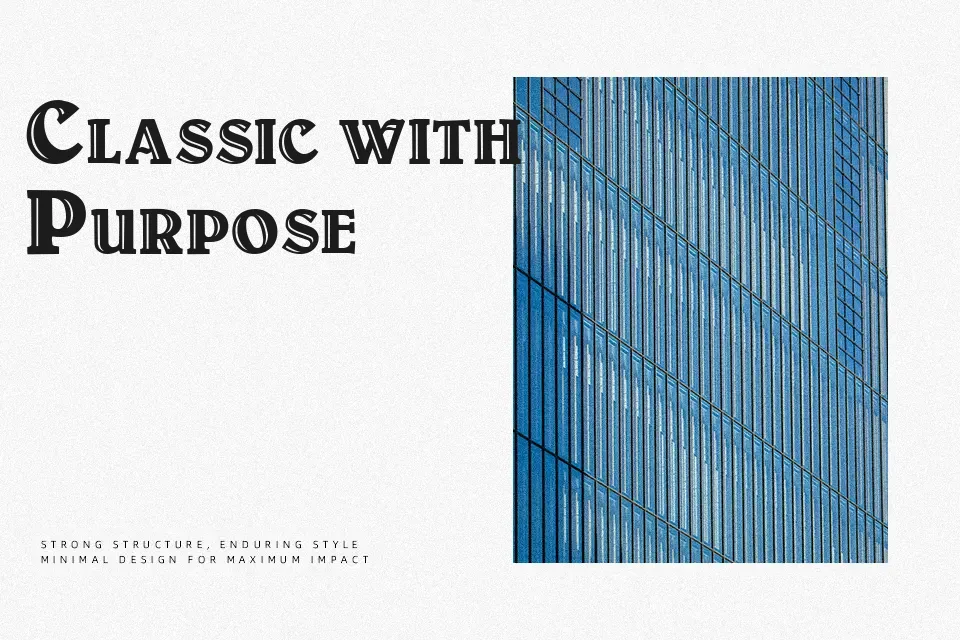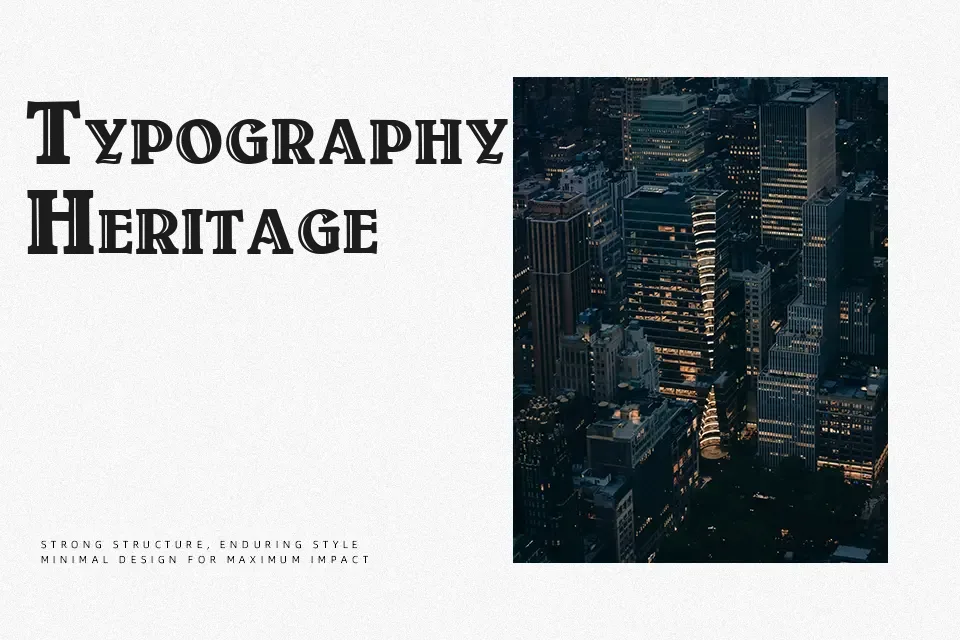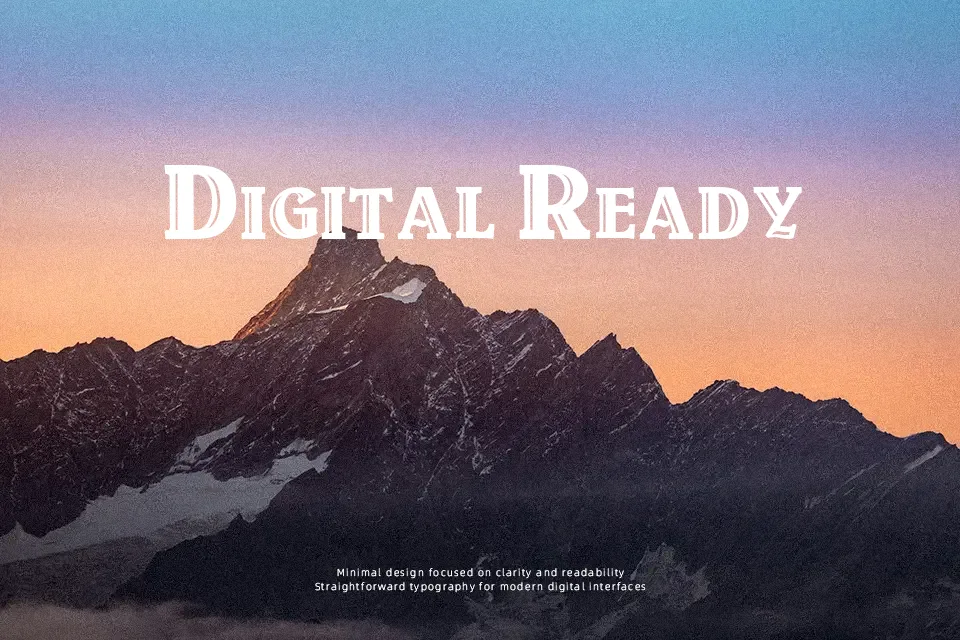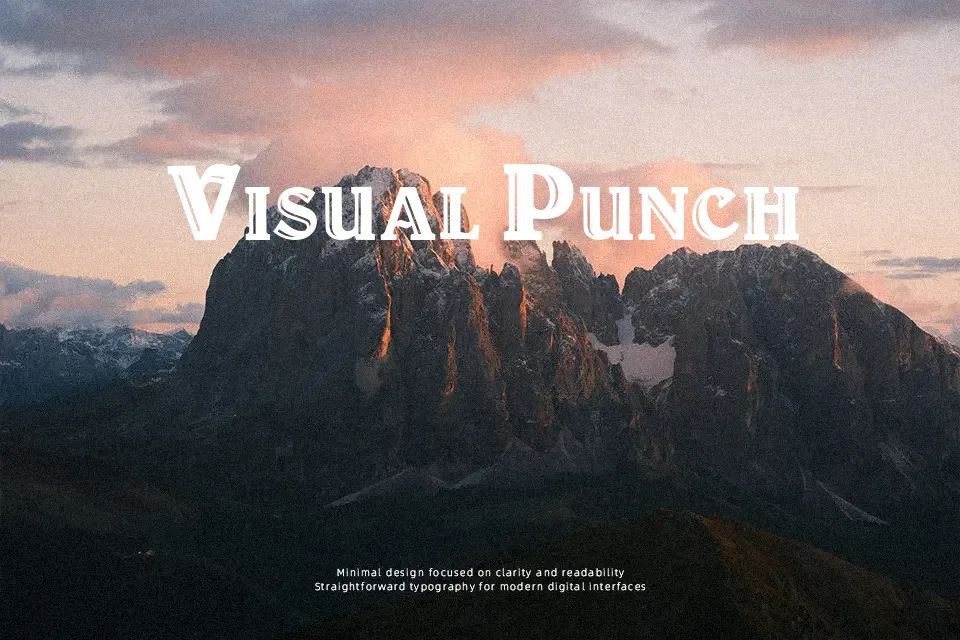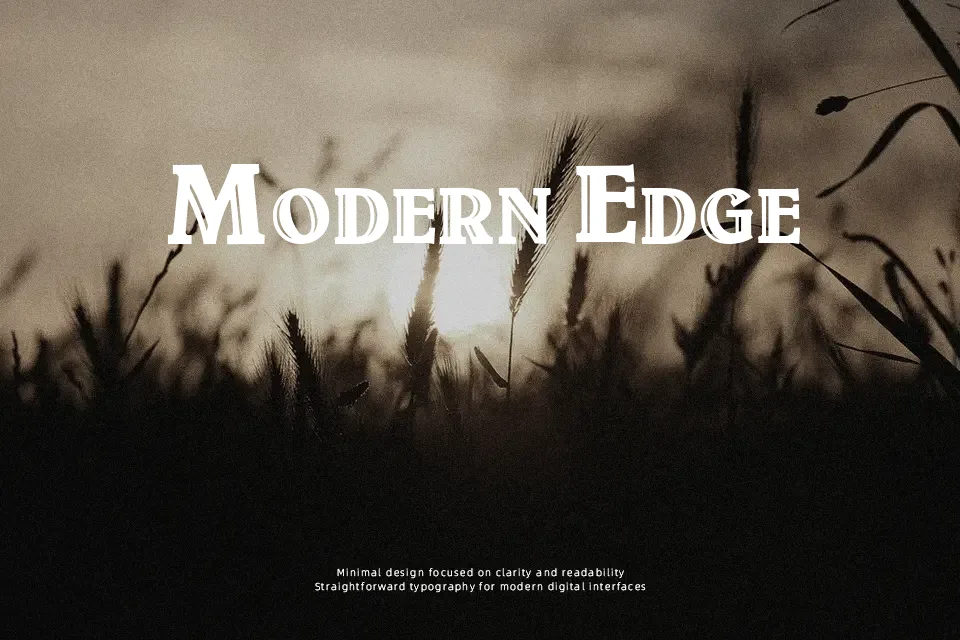
Titulo Font
Built upon massive letterforms with carved interior channels, Titulo Font exhibits a distinctive inline display construction marked by sturdy triangular serifs. Thick exterior contours contrast with fine central cutouts, giving the typeface an imposing yet structured appearance. Its character spacing is calibrated with tight margins to preserve visual density across short lines, while the broad horizontal proportions produce strong graphic rhythm. The letterforms maintain dependable clarity in prominent display roles such as event posters, festival banners, and package headers. However, the heavy weight and narrow internal incisions blur quickly at smaller scales, rendering the design ineffective for continuous body text.
Best For: music festival posters, vintage product packaging, restaurant menu headers, apparel graphics
Not Ideal For: long paragraph text, mobile interface labels, technical manuals, legal documents
Perfect for headline, logo, and packaging, with a bold and decorative style.